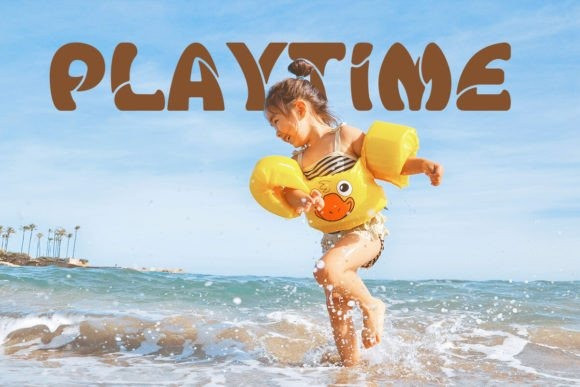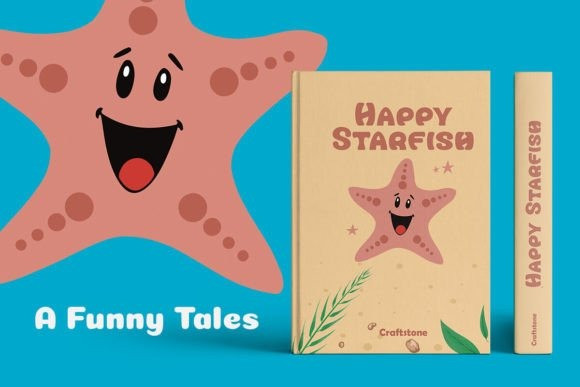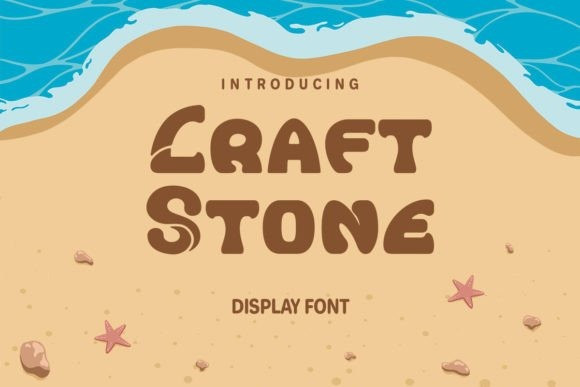
Craftstone Display Font
Craftstone Display Font, a delightfully fun and whimsical font designed to infuse a sense of joy into your projects. Perfect for children’s designs, playful themes, and relaxed settings, Craftstone brings a lighthearted touch to your creations. This font’s unique personality shines through with its alternates, allowing you to craft a truly distinctive and charming look.
Whether you’re creating for kids or seeking a laid-back vibe, Craftsone’s playful spirit and versatile alternates make it the ideal choice for adding a touch of creative flair to your designs.